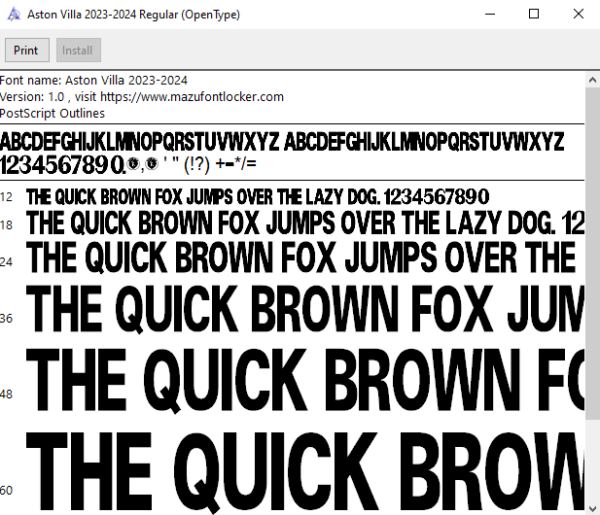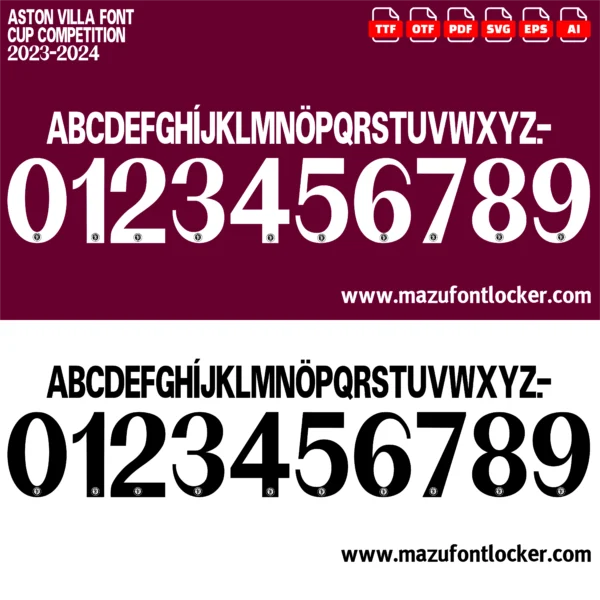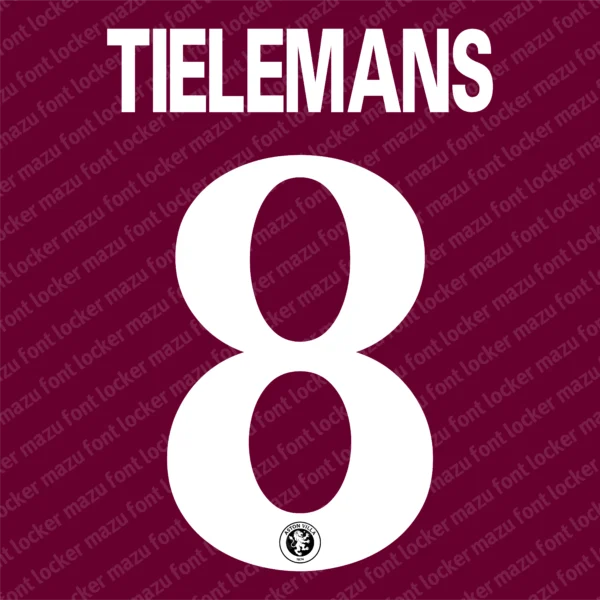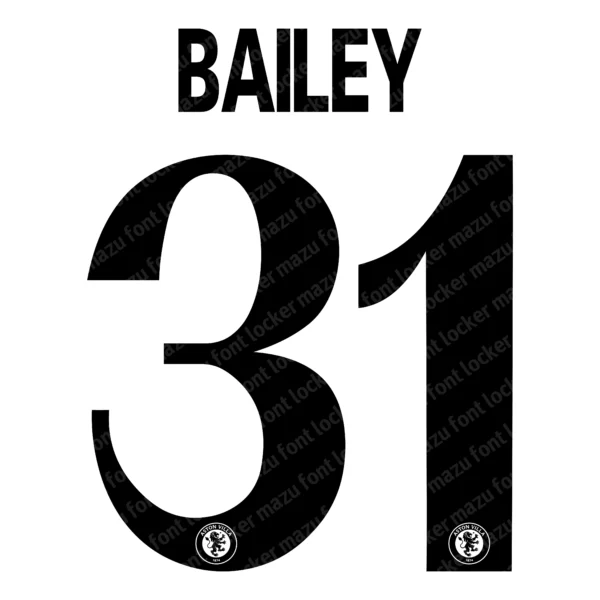
Aston Villa 2023-2024 Font Vector – Legendary Claret and Blue Victory Font
Download the Aston Villa 2023-2024 Font Vector (AI, EPS, SVG, PDF, OTF, TTF) and unleash the thunderous, blazing-claret-and-blue inferno of ultra-ferocious match typography that erupted like a roaring Lions assault across the historic Villa Park and Premier League battlegrounds during the legendary Aston Villa 2023-2024 campaign.
This premium font captures the commanding, majestic, iron-willed war-machine lettering that embodies the unstoppable Aston Villa spirit — delivering raw Birmingham fire, explosive Lions pride, unbreakable resilience, tactical dominance, legendary warrior grit, and the fierce claret-and-blue roar that made the Premier League tremble.
Aston Villa 2023-2024 Font Vector – Authentic Villans Typeface
The Aston Villa 2023-2024 Font Vector is a premium typeface that accurately recreates the official match lettering worn by the Aston Villa squad during the memorable 2023-2024 Premier League season. This high-quality vector font kit captures the bold, dynamic, and modern typography that represents the pride, passion, and rich football heritage of The Villans.
Designed for professional designers and passionate Aston Villa fans, the Aston Villa 2023-2024 Font Vector delivers perfect authenticity for creating realistic jersey mockups, fan merchandise, matchday posters, social media graphics, and Aston Villa content. It pairs beautifully with the iconic claret and blue kit featuring the famous club crest.
Why Choose Aston Villa 2023-2024 Font Vector
This font stands out because of its sharp vector precision and strong club identity. Every letter and number is crafted to match the exact style used on the players’ shirts during the 2023-2024 season. Whether you are making realistic kit templates or exciting Villans content, the Aston Villa 2023-2024 Font Vector gives your designs that authentic Aston Villa look.
The letterforms in the Aston Villa 2023-2024 Font Vector are tall, bold, and highly readable. The strokes have a strong, clean weight with excellent edge definition that looks powerful on the back of jerseys while maintaining the classic English club spirit and modern strength.
• Full uppercase A–Z and numbers 0–9 in authentic Aston Villa 2023-2024 style
• Special Aston Villa logo glyph – Press the “:” (Colon mark) symbol to insert the logo
• Create highly realistic Aston Villa 2023-2024 home and away jersey mockups with accurate lettering
• Produce custom Aston Villa merchandise with the 2023-2024 aesthetic